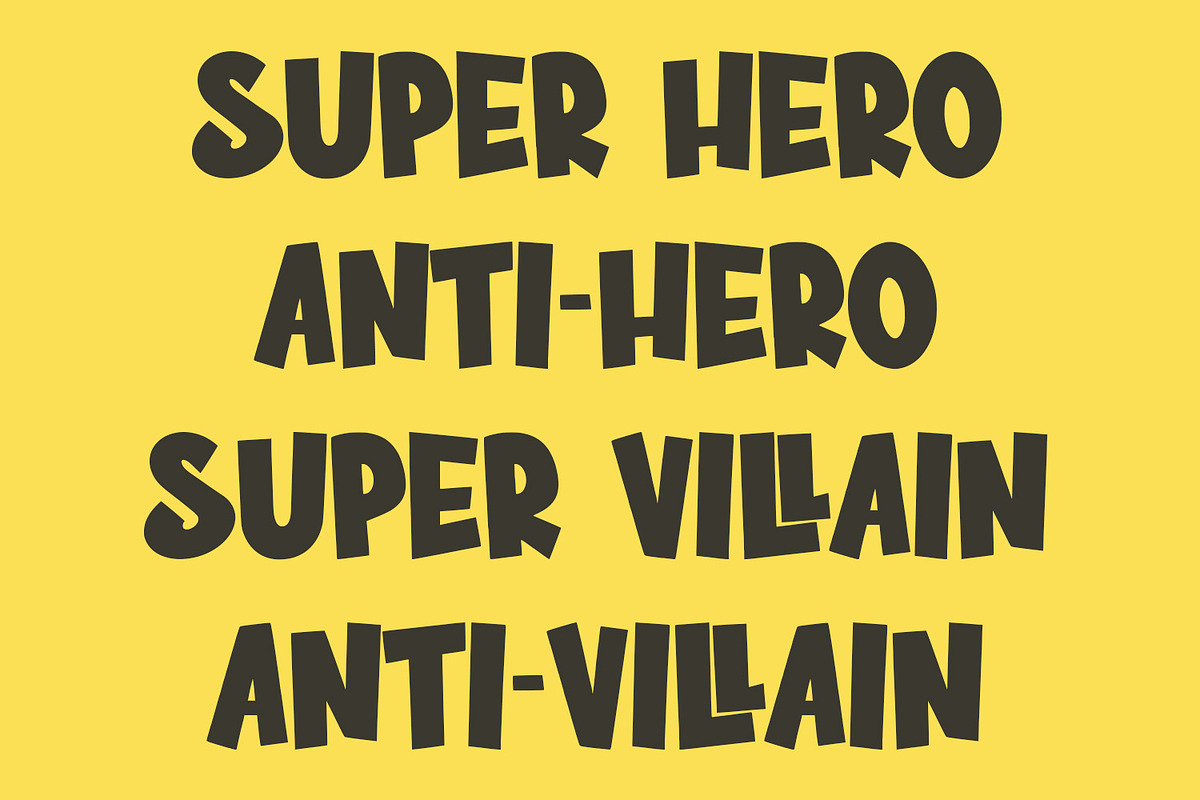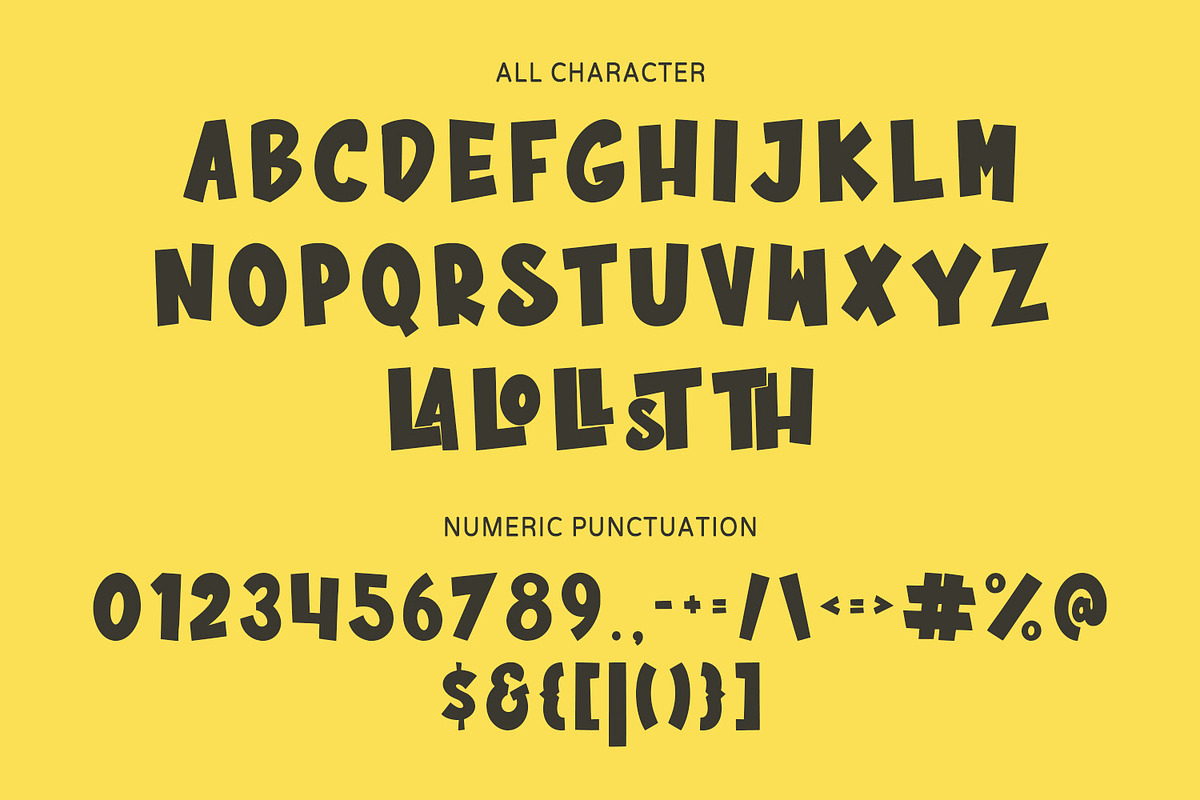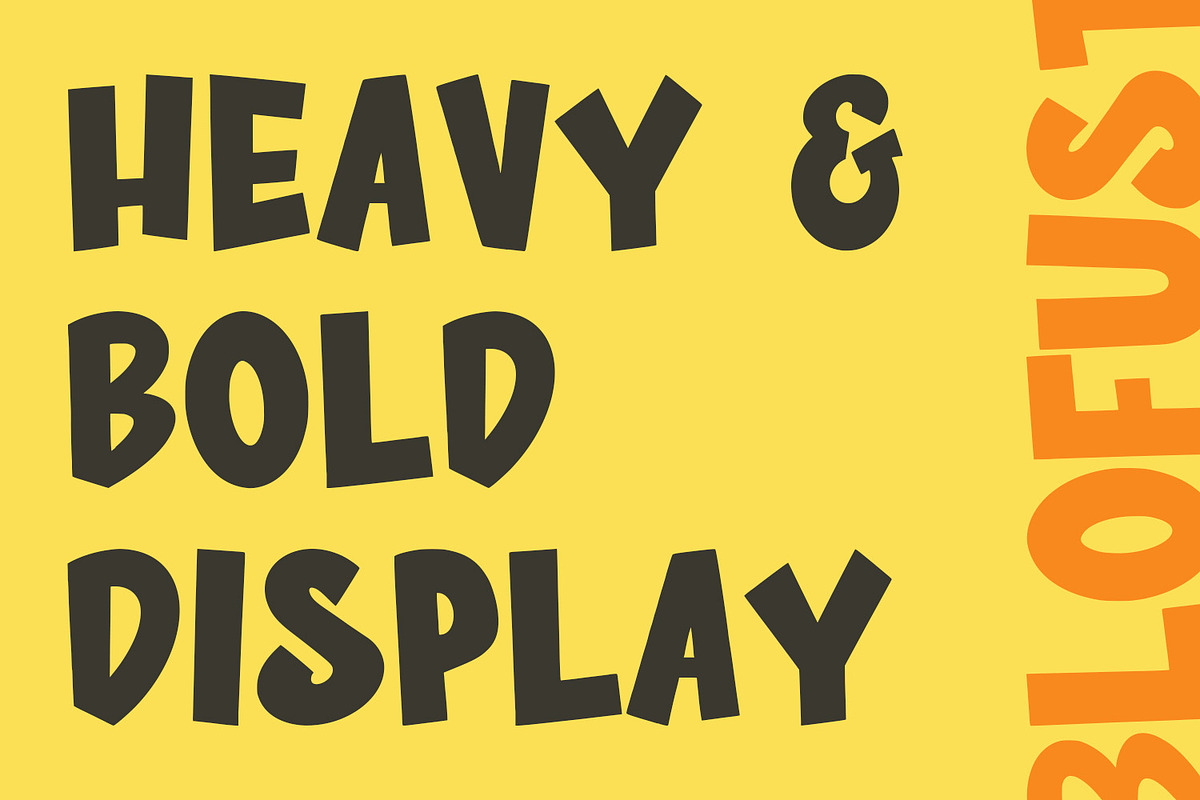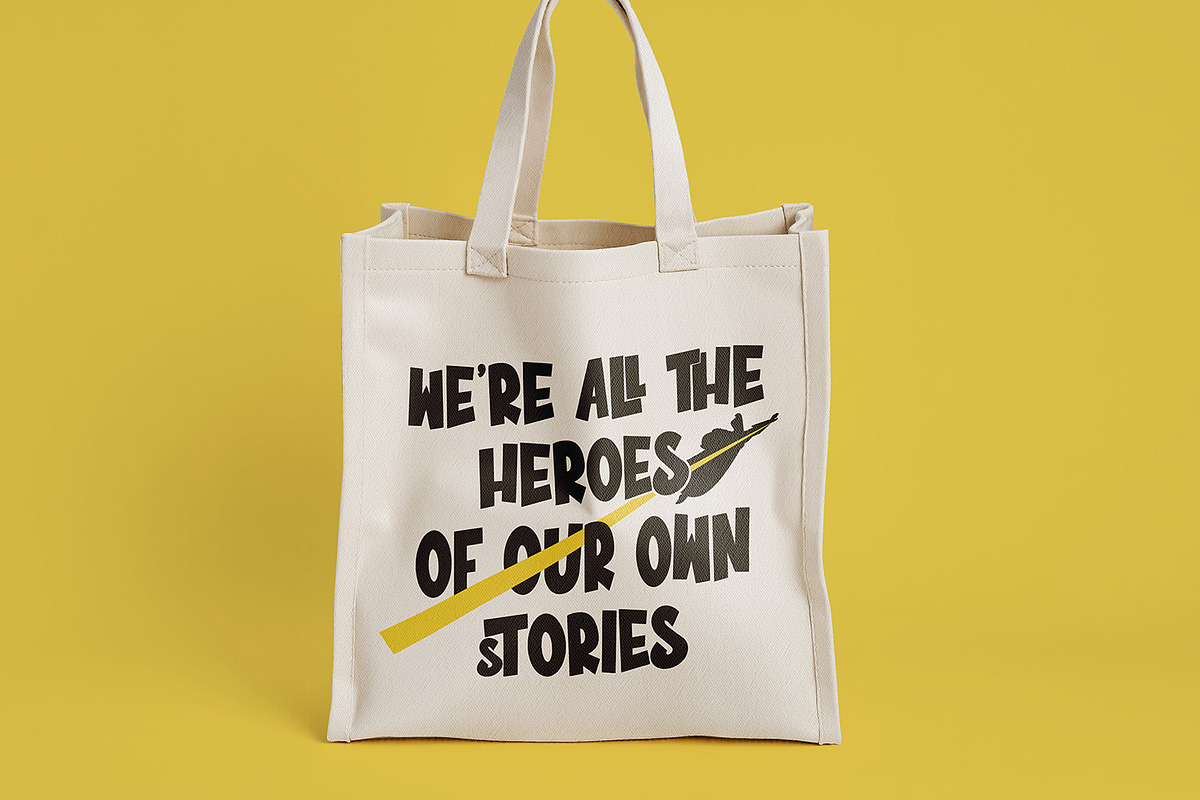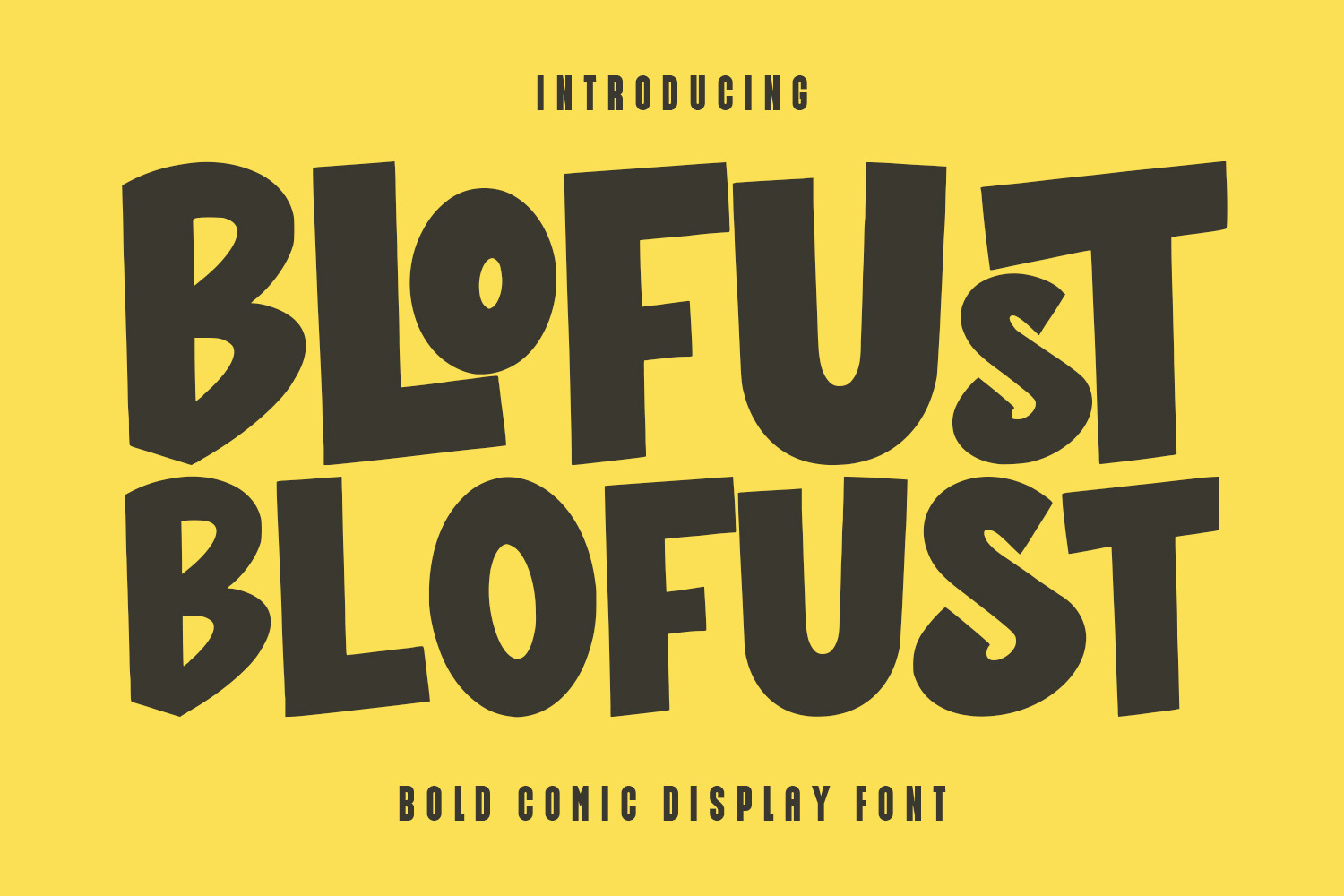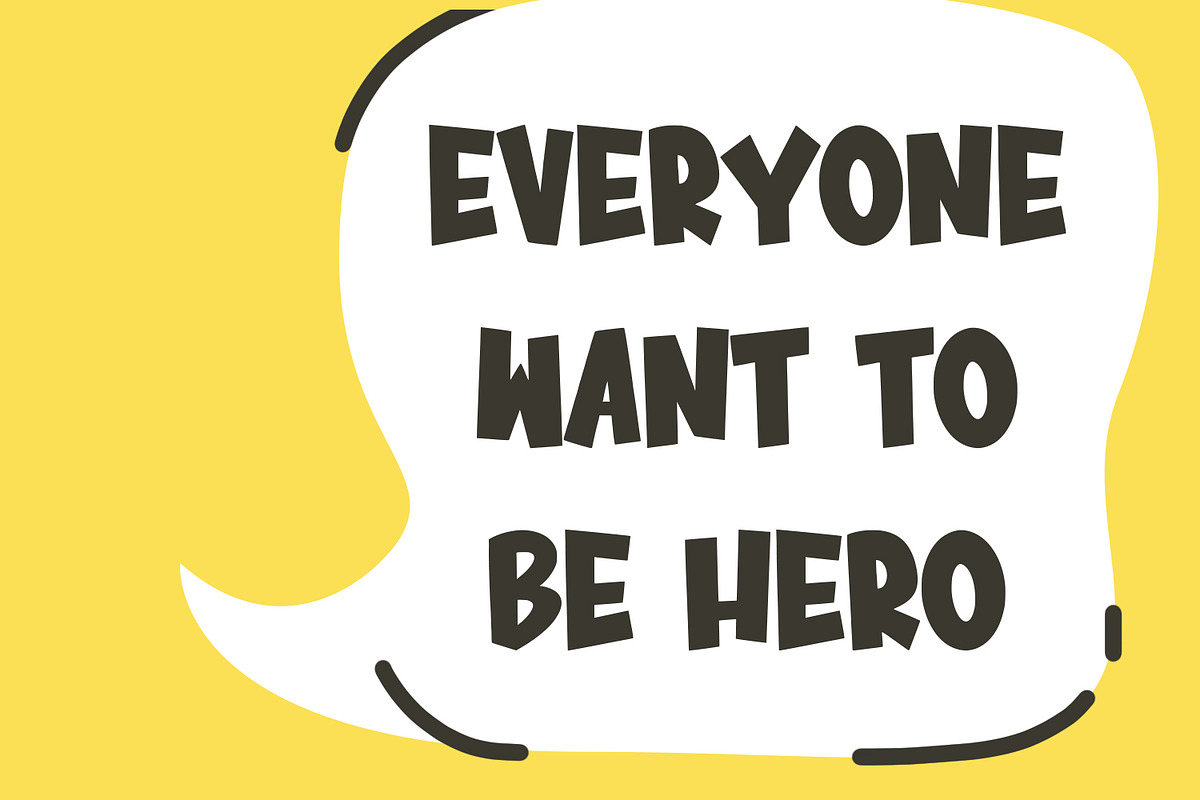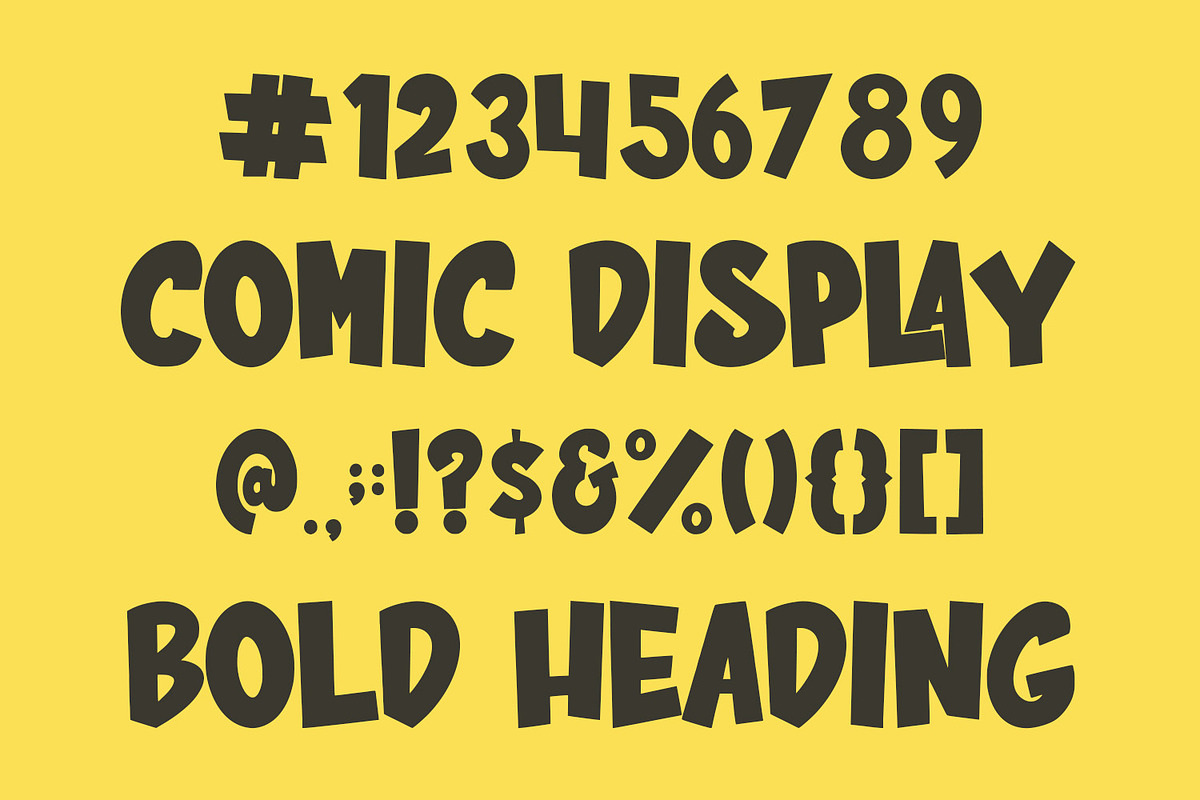
Blofust Bold Comic Display Font
Blofust is a playful modern display comic font. Bold stroke, fun character with a bit of ligatures. To give you an extra creative work. Blofust font support multilingual more than 100+ language. This font is good for logo design, Social media, Movie Titles, Books Titles, a short text even a long text letter and good for your secondary text font with script or serif. Make a stunning work with Blofust font.